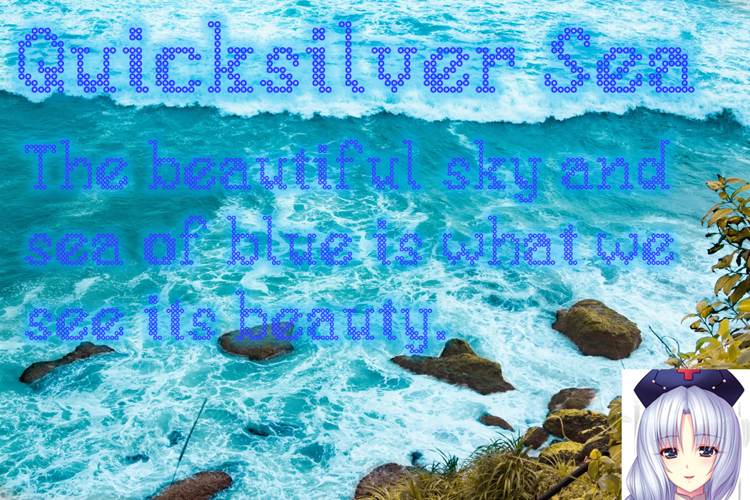
Quicksilver Sea Font
Quicksilver Sea is a Perler beads-themed decorative font where it serves as the newest installment of "Spell Card Tribute" series. It is the only font in the series made using FontStruct. Recommended to use at larger font sizes to get the maximal Perler beads look. It was titled after one of Eirin Yagokoro's spell cards:
English: Elixir "Quicksilver Sea"
Japanese: 練丹「水銀の海」